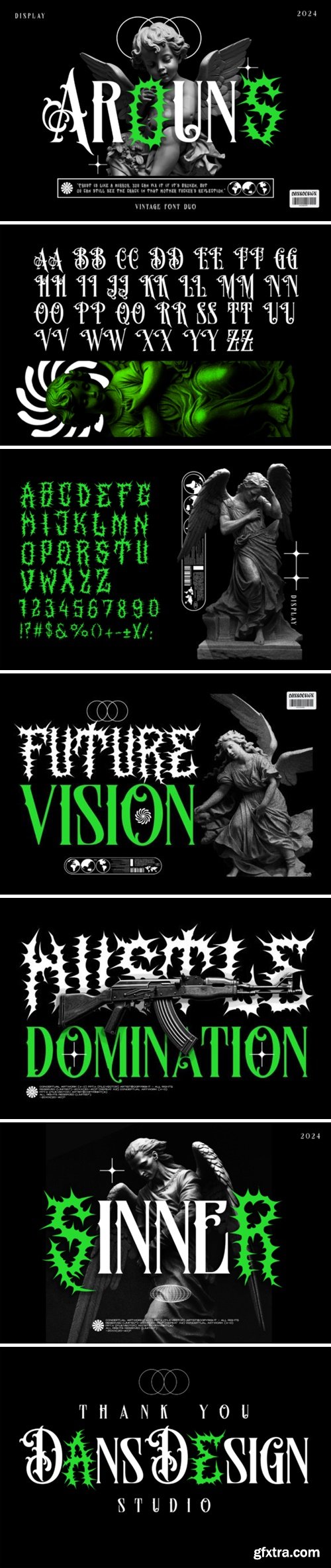
Arounds Font
Arouns is a bold and thick lettered blackletter font duo. Add it confidently to your projects, and you will love the results. This font is PUA encoded which means you can access all of the glyphs and swashes with ease!